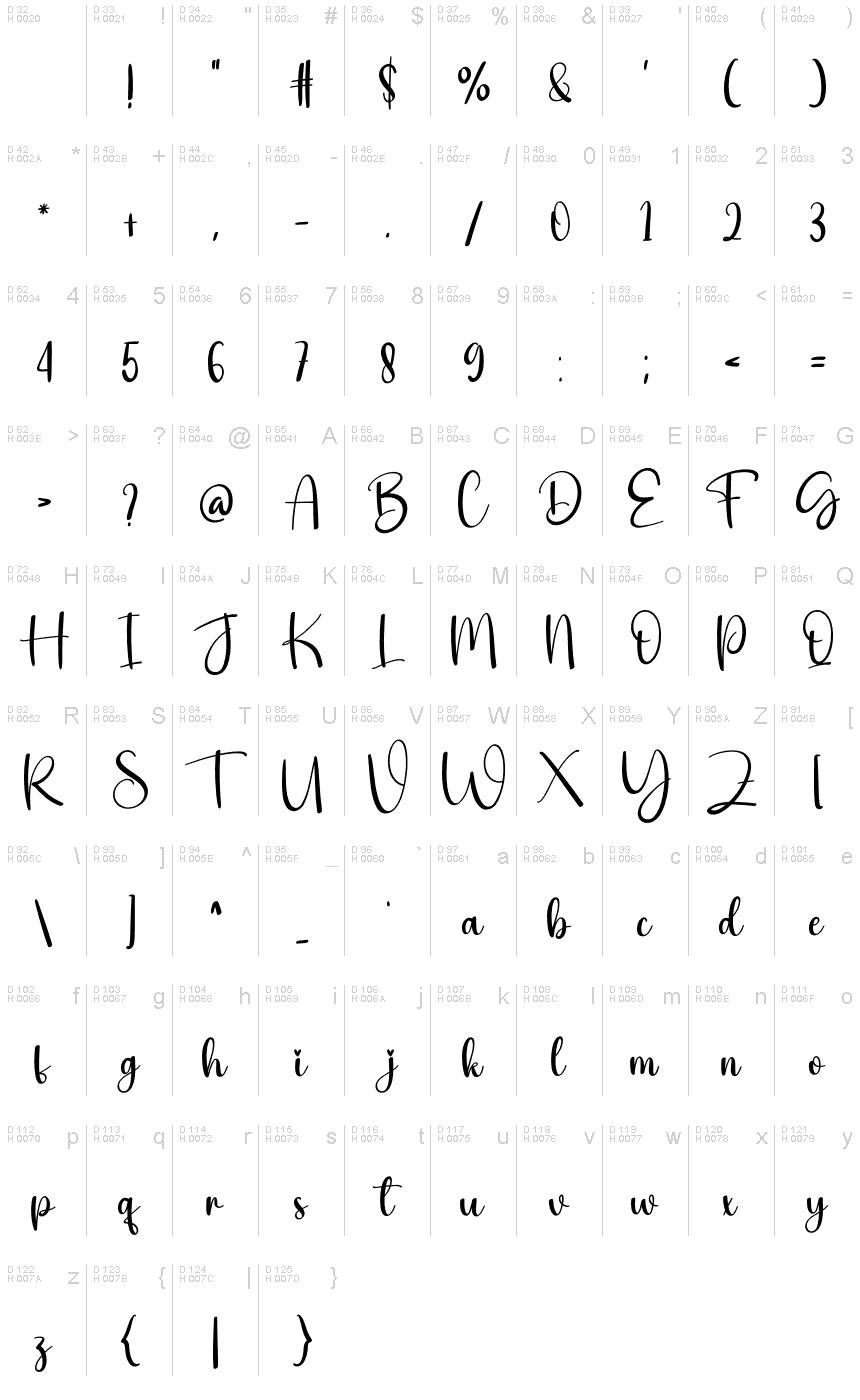
Winsome
Winsome, a delicate and enchanting typeface created by Scratchones, is the epitome of feminine calligraphy. With its semi-light weight, Winsome exudes an air of elegance and sophistication.
This font is perfect for wedding invitations, romantic novels, beauty blogs, and fashion magazines. Its graceful curves and flowing lines add a touch of whimsy to any project, making it ideal for creating stunning logos or branding materials that aim to captivate the female audience.
Let Winsome be your go-to choice when you want to infuse your designs with a touch of femininity and grace.